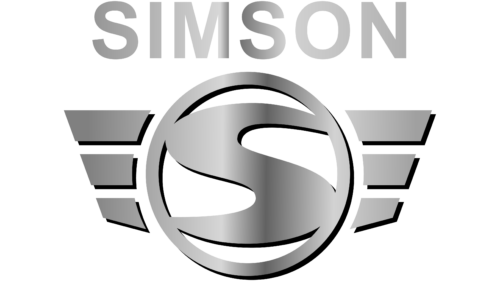
Simson is a notable German company renowned for its expertise in the automotive industry, particularly in the production of motorcycles, mopeds, and small cars. The ownership of Simson has evolved over time, reflecting changes in the business and political landscape of Germany. The company has a significant operational presence, especially in Suhl, Thuringia, where it was historically based. This region has been pivotal to its manufacturing and development processes, contributing to the regional economy and the broader automotive industry in Germany.
Simson was founded in 1856 by brothers Löb and Moses Simson. Originally, they started as a steel and arms manufacturer in Suhl, Germany, but the company’s venture into the automotive sector marked a significant turning point in its history. Notably, Simson achieved considerable success in the early to mid-20th century with the production of small cars and, later, motorcycles and mopeds, which became emblematic of East German mobility.
Throughout its history, Simson has undergone numerous changes, reflecting both its resilience and adaptability in different political and economic climates. During the DDR era, Simson’s motorcycles and mopeds, like the Simson Schwalbe, gained widespread popularity due to their affordability and reliability. These vehicles became symbolic of East German culture and are still celebrated for their historical and cultural significance.
In the current era, Simson has continued to adapt and evolve. While facing challenges common in the modern automotive industry, it strives to uphold its legacy through continued innovation and adaptation to market demands. The company’s ability to endure through various historical epochs—ranging from imperial Germany to the DDR, and now in reunified Germany—speaks volumes about its significance in the automotive sector and its enduring legacy in German industrial history.
Simson Logo
The logo consists of the word “SIMSON” in uppercase letters with a sleek, modern font. Directly below this text is an emblem that features a stylized ‘S’ at the center of a circle. The ‘S’ is designed with a dynamic, flowing shape, conveying a sense of motion and speed. The circle is encased within a larger oval that is split into three distinct sections, each section tapering to a point on both ends, giving the impression of a wing or blade, which could symbolize precision and swiftness.
The entire logo utilizes a gradient of metallic shades, suggesting a chrome-like material typically associated with automotive excellence and durability. The design is minimalist yet conveys strength and movement, aligning with the automotive theme.